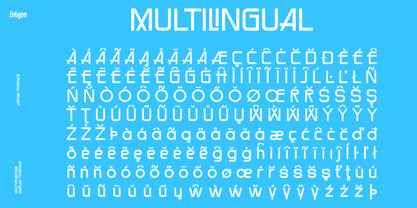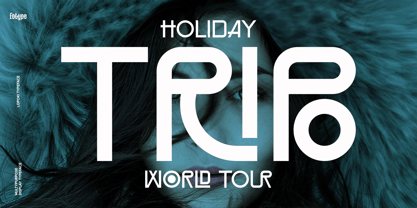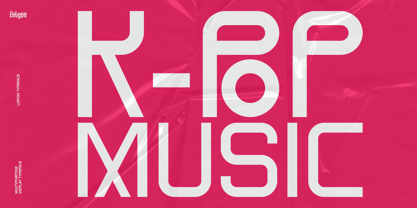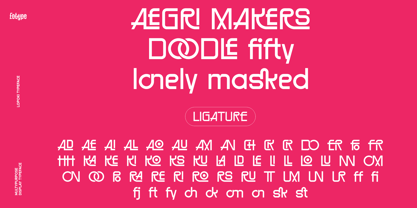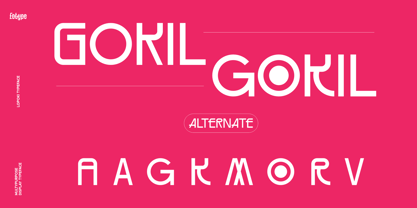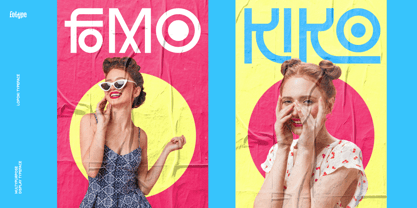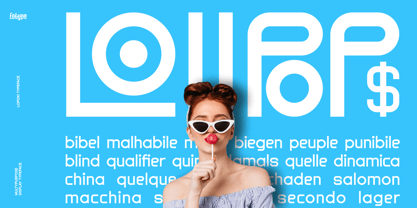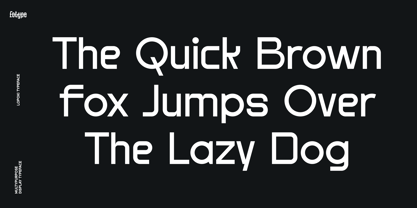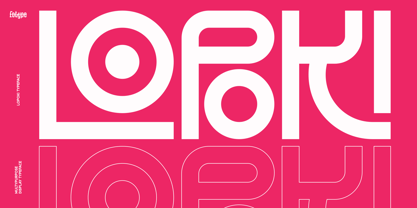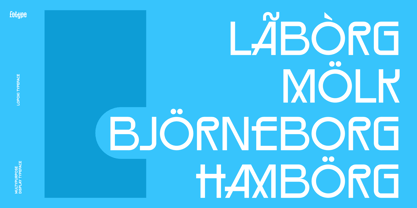
Lopoki
by Eotype
The Lopoki Font Family was designed by Fajar Ramadan and published by Eotype. Lopoki contains 1 styles. More about this family
Lopoki fonts often feature ligatures, which are unique typographic combinations in which two or more letters are combined artistically to create a visually interesting connection. This binder adds a touch of sophistication and fluidity, making the text stand out with artistic flair. Lopoki Ideal for branding, logos, headlines, posters, and editorial designs, the sans-serif style ligature display font strikes the perfect balance between modern simplicity and decorative elegance. Its flexibility allows it to convey professionalism and creativity, making it suitable for luxury branding, wedding invitations, fashion editorials and digital media.
Designers: Fajar Ramadan
Foundry: Eotype
Eotype Studio is an independent digital creator based in Bandung, West Java, Indonesia. Established in early 2020, Eotype Studio specializes in designing and selling creative, original, and character-driven fonts.As an independent type foundry, Eotype Studio blends contemporary design sensibilities with a distinctive local touch. Each typeface is crafted through visual research, shape exploration, and unique ligature experiments—aiming to deliver bold and functional typography solutions for branding, editorial, and digital interfaces.